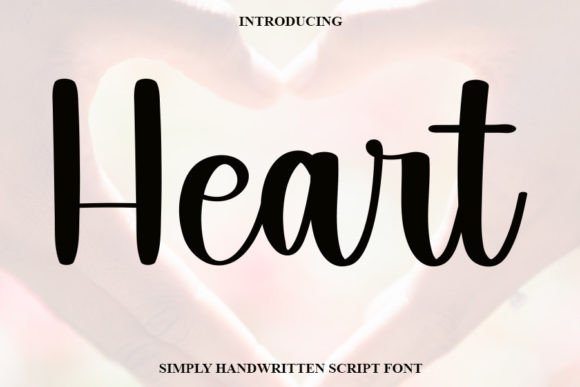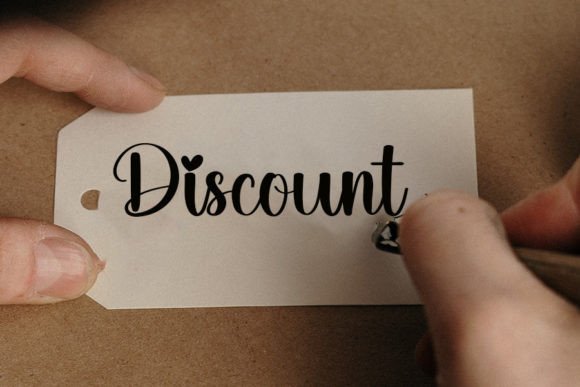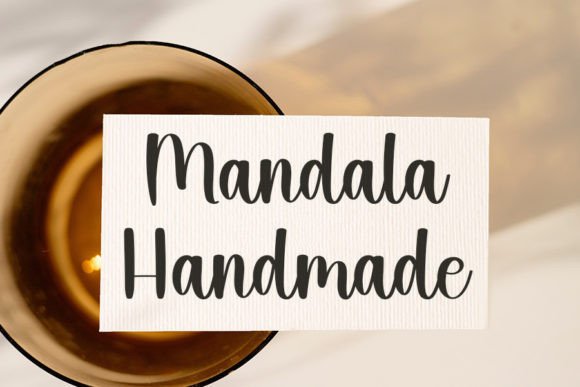
A Trendy Handwritten Script with Timeless Elegance
Heart Font is a trendy handwritten script that combines the contemporary atmosphere with the charm of timeless classic calligraphy. With its impeccable form and balanced letterforms, this font brings an elegant and artistic touch to your design projects. Whether you’re creating wedding invitations, logos, branding materials, or social media content, the Heart Font adds a romantic and refined feel to any design.
Perfect for Wedding Invitations and Special Occasions
For wedding invitations and other special occasion stationery, the Heart Font is an ideal choice. Whether you’re designing RSVP cards, thank-you notes, or save-the-dates, this font adds a romantic, elegant touch to your designs. Its calligraphy-inspired strokes bring a sense of luxury and timelessness, making it perfect for weddings, anniversaries, and other memorable occasions. The Heart Font ensures your special occasion materials are both sophisticated and personalized.
Ideal for Logos and Branding Projects
For logos and branding, the Heart Font offers a unique, refined style that enhances your brand identity. Whether you’re designing a luxury brand logo, personal brand, or corporate materials, this font provides a stylish handwritten look that gives your branding a premium, distinctive feel. The Heart is perfect for businesses in industries like fashion, beauty, and lifestyle, helping your branding stand out with a personalized and elegant touch.
Great for Greeting Cards and Invitations
For greeting cards and invitations, the Heart Font adds a romantic and timeless touch to your designs. Whether you’re creating birthday cards, thank-you notes, or holiday greetings, this font ensures your cards feel luxurious and personalized. Its delicate strokes and beautiful form make it perfect for both formal and casual occasions, ensuring your designs stand out with a charming and elegant feel.
Ideal for Product Packaging and Labels
For product packaging and labels, the Heart Font adds a luxurious, refined look to your designs. Whether you’re designing product labels, gift packaging, or seasonal items, this font adds a personalized and elegant touch to your branding. The Heart is perfect for luxury products, artisan goods, and custom gifts, ensuring your products stand out with a timeless and high-end appeal.
Versatile, Legible, and Elegant
Despite its delicate handwritten design, the Heart Font remains legible and easy to use. Its well-spaced characters and consistent strokes ensure that your text remains clear and readable, even for longer passages or smaller sizes. Whether you’re using it for headlines, captions, or body text, this font strikes the perfect balance between creativity and readability, making it suitable for a wide range of design applications, from print to digital media.
Add Elegance and Romance to Your Designs with Heart Font
If you’re looking for a stylish handwritten that adds a romantic, elegant touch to your designs, the Heart Font is the perfect choice. Whether you’re designing wedding invitations, logos, greeting cards, or social media posts, this font will help you create memorable, refined designs that stand out. Let the Heart Font bring a timeless, graceful touch to your projects and leave a lasting impression with its elegance and romantic charm.